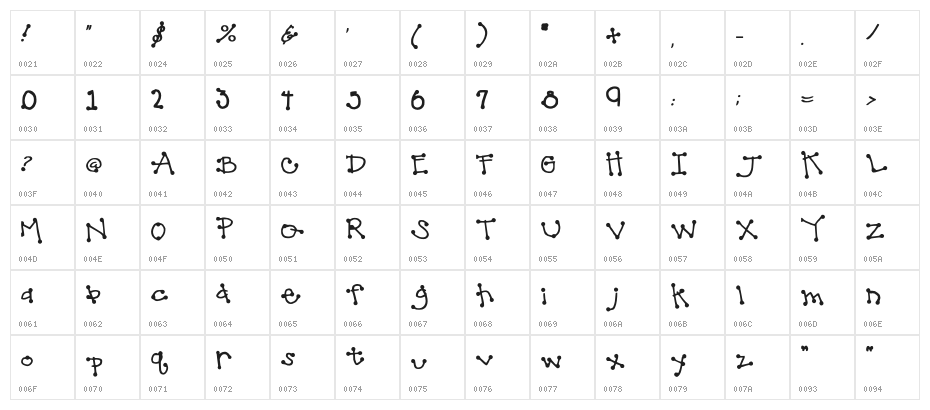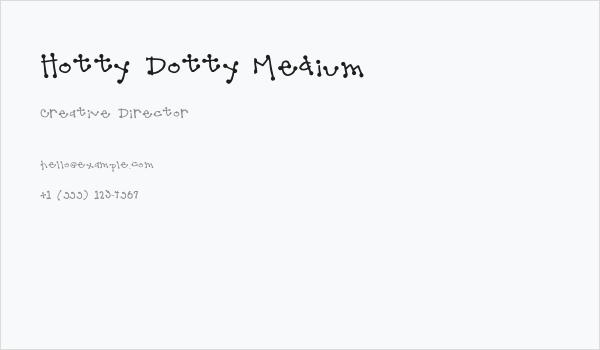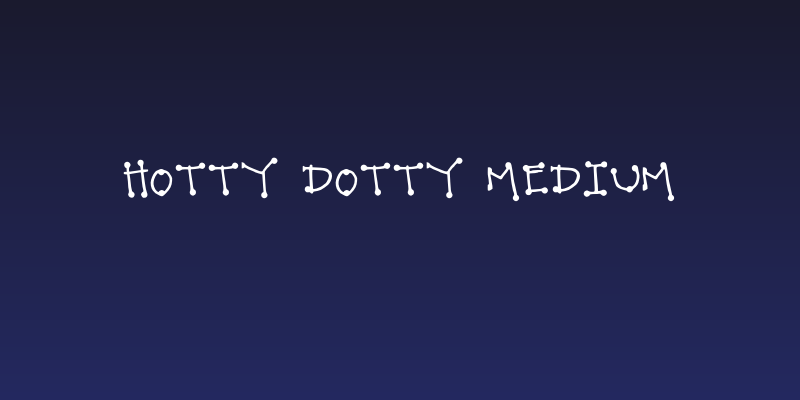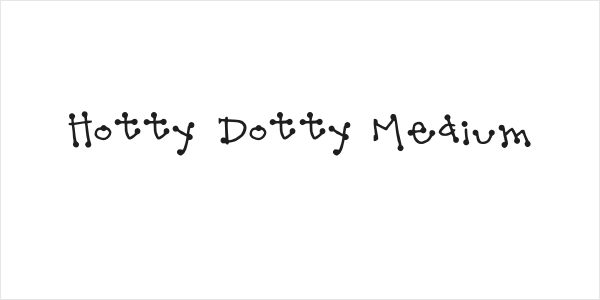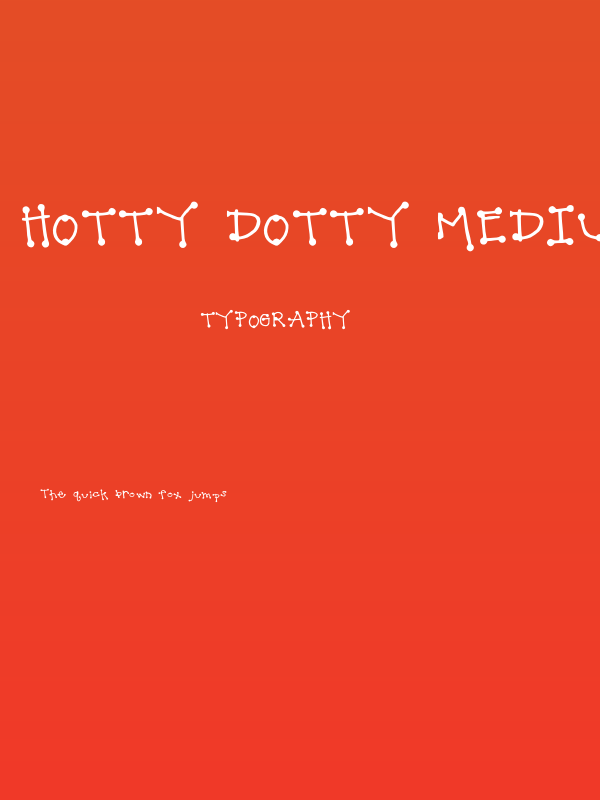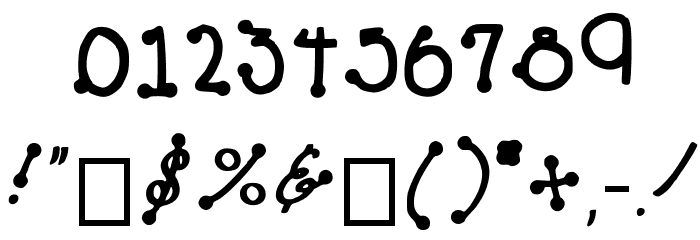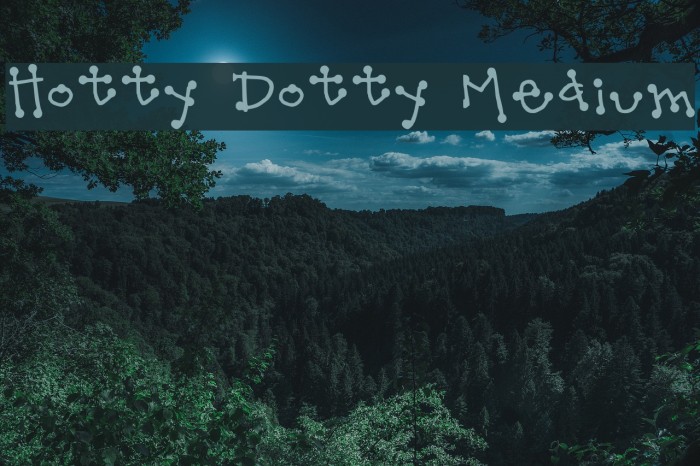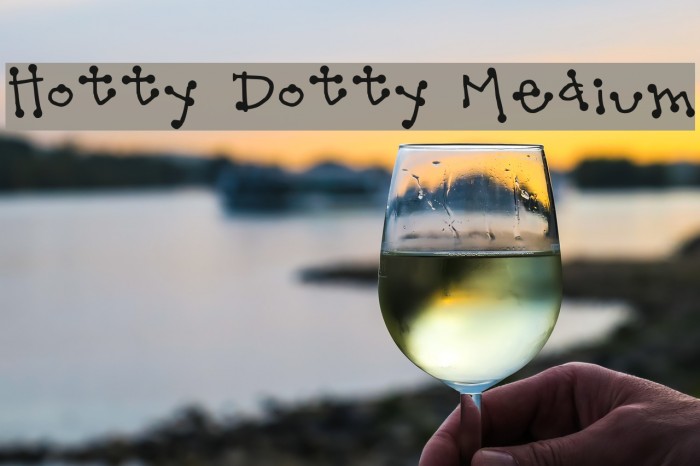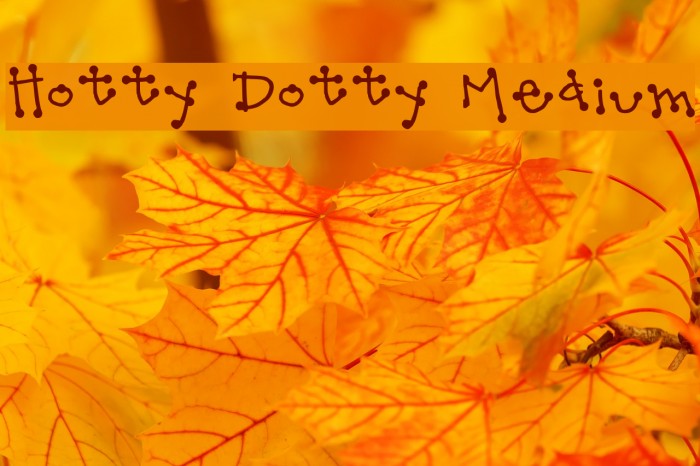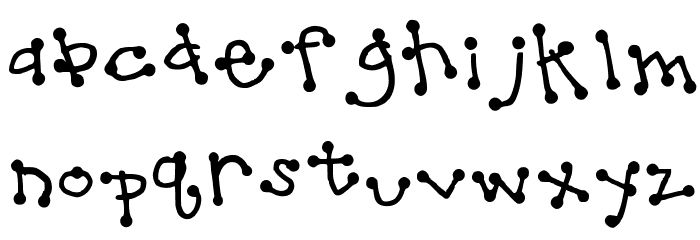
Hotty Dotty Medium Font
Hotty Dotty Medium Description
This playful and whimsical font features a unique design where each character is adorned with small dots at the ends of its strokes, giving it a lively and dynamic appearance. The letters are slightly irregular, adding to the font's charm and making it ideal for creative and informal projects. The uppercase and lowercase letters maintain a consistent style, with rounded edges and a hand-drawn feel. Numbers and special characters follow the same playful theme, ensuring a cohesive look across all text elements. The font's distinctive style makes it stand out, perfect for projects that require a touch of fun and creativity.
| Overall Style | Whimsical |
| Proposed Projects | Ideal for children's books, greeting cards, playful branding, and creative posters. |